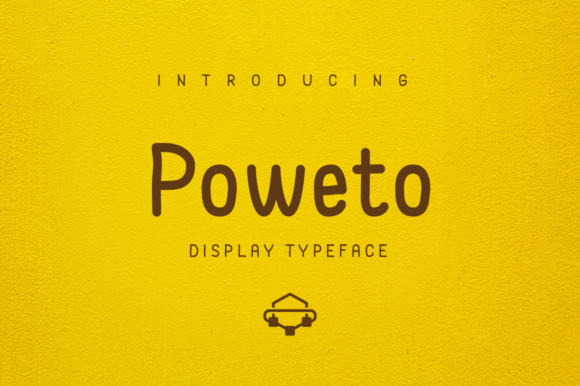
Poweto Font: The Sweet and Friendly Handwritten Font for Your Designs
Are you looking for a font that can add a personal touch to your designs? Do you want to create a unique and friendly vibe that resonates with your audience? Look no further than the Poweto font! This sweet and friendly handwritten font is perfect for a wide range of designs, from branding and advertising to packaging and digital media. In this article, we’ll explore the features and benefits of the Poweto font, and show you how to use it to take your designs to the next level.
What is Poweto Font?
Poweto is a beautiful, handwritten font that is designed to be both sweet and friendly. Its natural and unique style makes it incredibly fitting to a large pool of designs, from playful and whimsical to elegant and sophisticated. The font is perfect for adding a personal touch to your designs, and its versatility makes it suitable for a wide range of applications.
Key Features of Poweto Font
- Handwritten style: Poweto font has a unique, handwritten style that gives it a personal and friendly feel.
- Natural and unique: The font’s natural and unique style makes it stand out from other fonts, and allows it to fit in with a wide range of designs.
- Versatile: Poweto font is suitable for a wide range of applications, from branding and advertising to packaging and digital media.
- Easily readable: The font is designed to be easily readable, making it perfect for body text and headlines.
Benefits of Using Poweto Font
- Adds a personal touch: The Poweto font adds a personal touch to your designs, making them more relatable and engaging.
- Creates a unique vibe: The font’s unique style creates a friendly and approachable vibe that resonates with audiences.
- Versatile: The font’s versatility makes it suitable for a wide range of applications, from print to digital media.
- Easily readable: The font’s readability makes it perfect for body text and headlines, ensuring that your message is communicated clearly.
How to Use Poweto Font in Your Designs
- Pair it with other fonts: Poweto font pairs well with other fonts, such as sans-serif fonts like Arial or Helvetica.
- Use it for headlines and body text: The font is suitable for both headlines and body text, making it a great choice for a wide range of applications.
- Experiment with colors and textures: The font’s natural style makes it easy to experiment with different colors and textures, adding depth and interest to your designs.
Poweto Font in Branding and Advertising
The Poweto font is perfect for branding and advertising applications, such as:
- Logos: The font’s unique style makes it perfect for creating memorable and distinctive logos.
- Headlines: The font’s readability and style make it perfect for headlines, grabbing the attention of your audience and communicating your message.
- Packaging: The font’s versatility makes it suitable for packaging design, adding a personal touch to your products.
Poweto Font in Digital Media
The Poweto font is also perfect for digital media applications, such as:
- Websites: The font’s readability and style make it perfect for website design, creating a friendly and approachable vibe.
- Social media: The font’s versatility makes it suitable for social media graphics, adding a personal touch to your online presence.
- Email marketing: The font’s style and readability make it perfect for email marketing campaigns, grabbing the attention of your audience and communicating your message.
In conclusion, the Poweto font is a sweet and friendly handwritten font that is perfect for a wide range of designs. Its natural and unique style makes it incredibly fitting to a large pool of designs, from playful and whimsical to elegant and sophisticated. With its versatility, readability, and style, the Poweto font is a great choice for adding a personal touch to your designs. Whether you’re working on a branding project, advertising campaign, or digital media application, the Poweto font is sure to make your designs stand out.
Poweto Font Specifications
- Font type: Handwritten
- Font style: Sweet and friendly
- Q: What is the Poweto font?
A: The Poweto font is a sweet and friendly handwritten font.